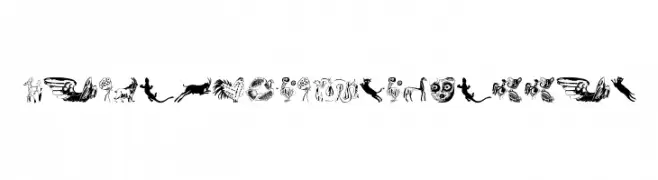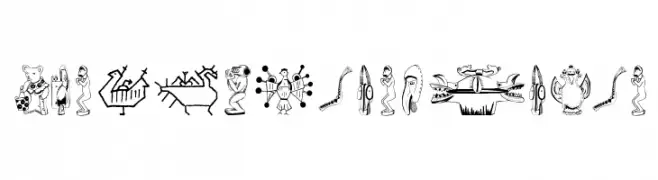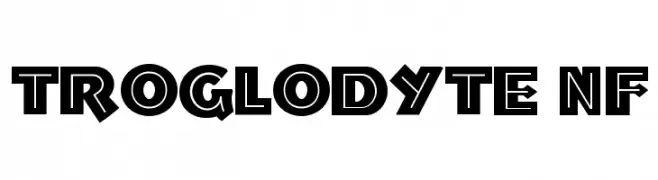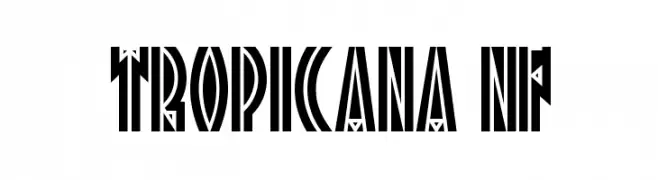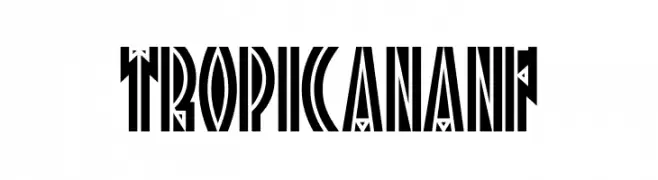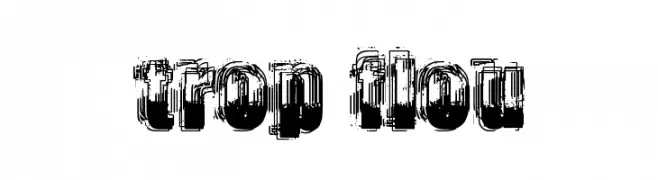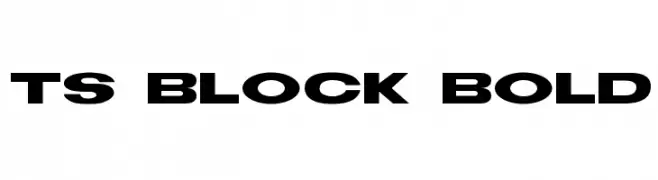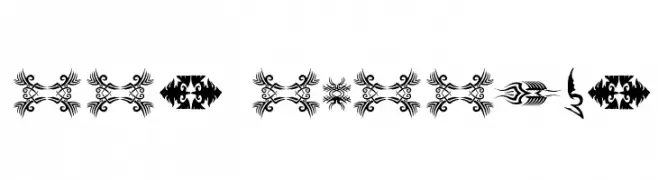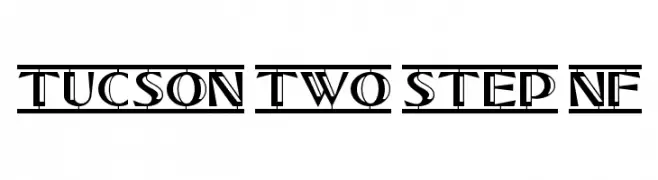
A collection of intricate tribal-inspired illustrations with bold, artistic motifs.
Intricate tribal designs featuring animal motifs and abstract forms with bold lines and cultural symbolism.
A bold, geometric font with a retro, angular design.
A bold, distressed font with a grungy, textured style.
A bold, geometric font with dramatic, decorative elements.
A bold, blocky font with a strong geometric structure and minimal contrast.
A whimsical, curly font with bold, artistic characters.
A bold, decorative font with geometric elements and high contrast strokes.